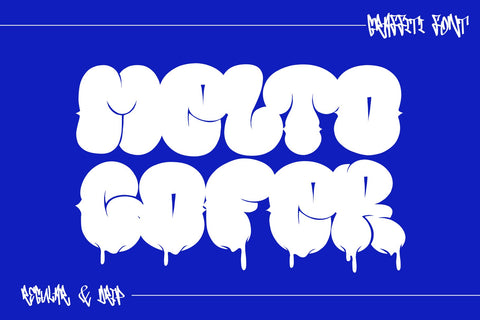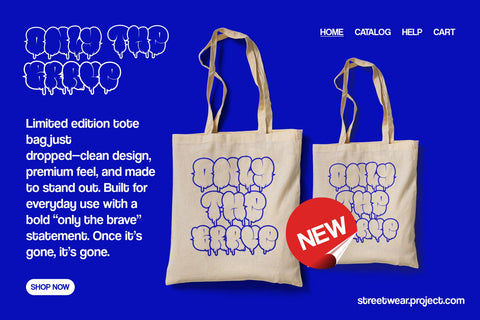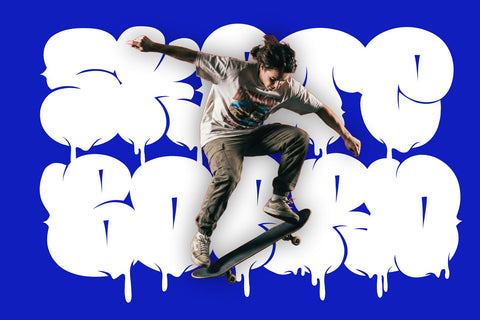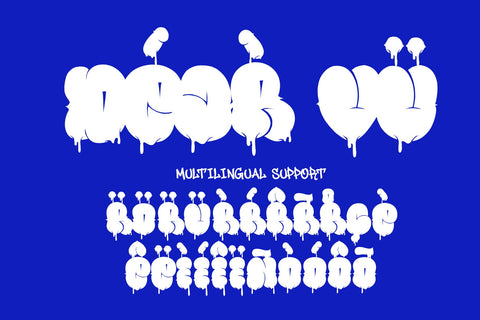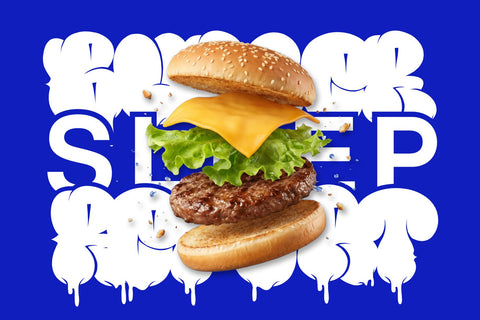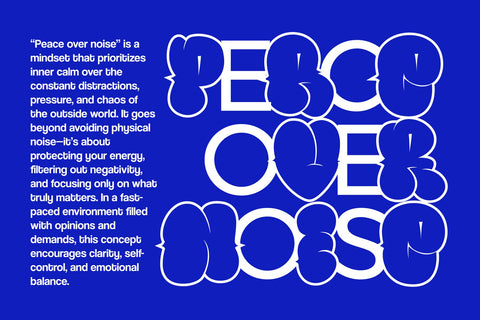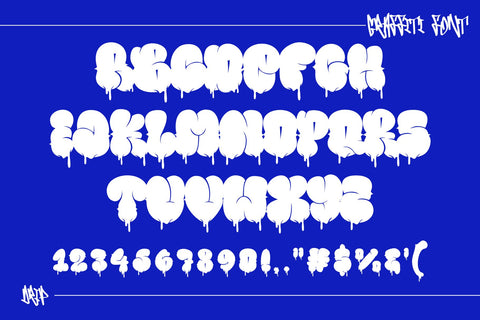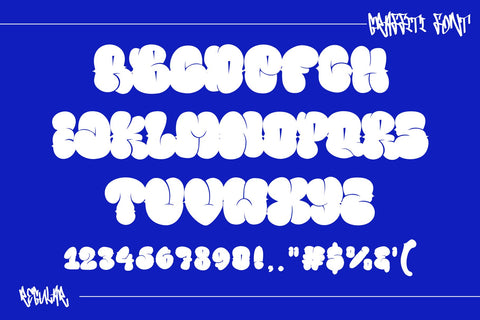
Melto Gofer – Bubble Graffiti Dripping Throw Up
Melto Gofer is a bold bubble graffiti display font inspired by classic throw-up graffiti styles and urban street culture. Designed with rounded shapes, thick outlines, and expressive dripping details, this typeface captures the raw and energetic essence of graffiti lettering while maintaining a playful and eye-catching appearance.
The font comes with two distinct styles: Regular and Dripping. The Regular style features solid bubble letterforms with smooth curves and strong readability, making it suitable for clean yet bold compositions. The Dripping style adds dynamic paint-like drips that enhance the graffiti aesthetic, creating a sense of movement and urban authenticity. These two styles can be used independently or combined to create layered and visually striking typography.
Melto Gofer includes uppercase characters designed with bold proportions and soft rounded edges, giving the font a friendly yet powerful presence. The bubble structure makes it highly visible and impactful, especially in large display settings. Numbers and punctuation are also included, ensuring full usability for a wide range of design applications.
With multilingual support, this font is ready for global use, allowing designers to create consistent and expressive designs across different languages. This makes it suitable for branding, marketing, and creative projects targeting diverse audiences.
Melto Gofer is ideal for projects that require a bold, urban, and playful identity. It works exceptionally well for streetwear branding, posters, album covers, gaming graphics, YouTube thumbnails, merchandise, and social media content. Its bubble graffiti style makes it especially appealing for youth-oriented and trend-driven designs.
The dripping style adds a unique visual layer, creating the impression of fresh spray paint. This gives the font a raw and authentic street art feel, making designs more dynamic and engaging. The rounded shapes also add a sense of fun, making it versatile for both edgy and playful concepts.
From a design perspective, Melto Gofer is highly effective as a focal point. Its bold and rounded forms naturally draw attention, making it perfect for headlines and key visual elements. Designers can pair it with simple sans-serif fonts to create contrast and maintain readability in supporting text.
Technically, the font is optimized for both print and digital use. Its vector-based construction ensures high-quality output across various sizes and formats. Whether used for large-scale posters or smaller design elements, it maintains clarity and visual impact.
Another advantage of Melto Gofer is its flexibility in creative exploration. Designers can experiment with colors, outlines, shadows, and layering techniques to create unique and engaging visuals. The combination of Regular and Dripping styles opens up a wide range of design possibilities.
Overall, Melto Gofer is more than just a font—it is a visual representation of graffiti culture and urban creativity. It allows designers to create bold, expressive, and memorable designs that stand out in any medium.